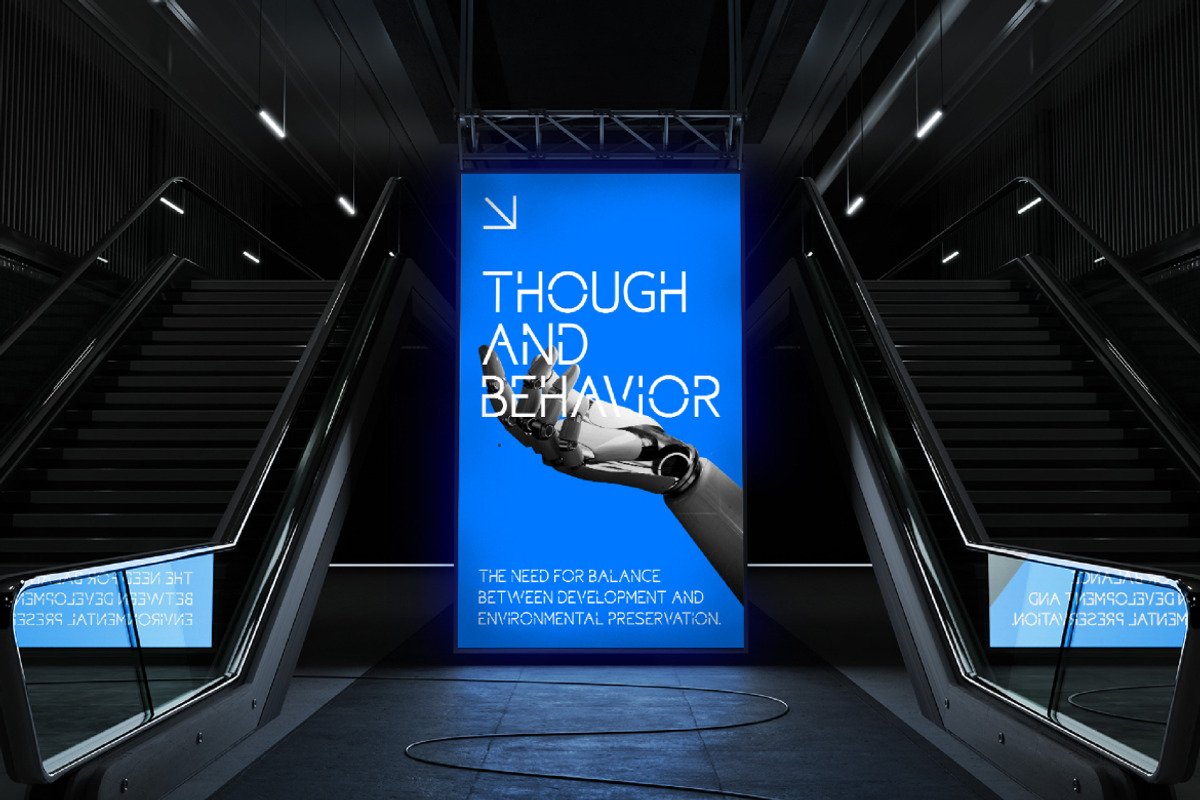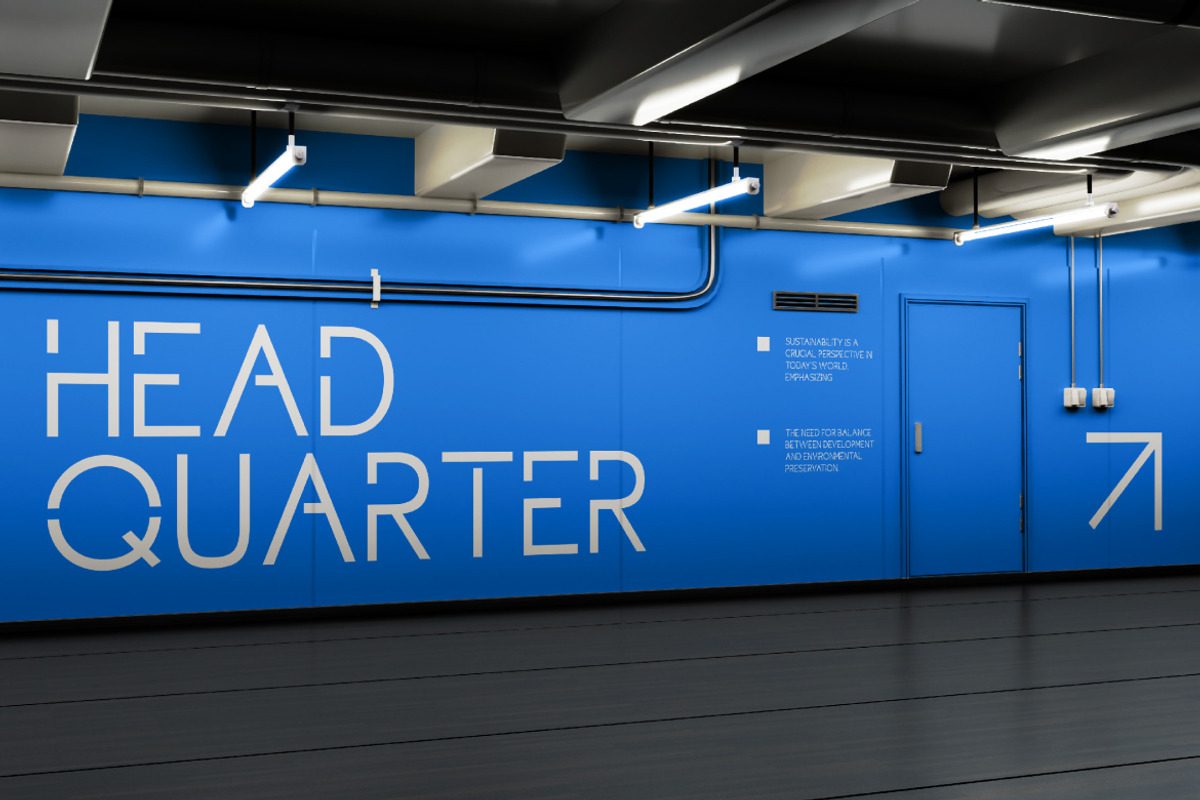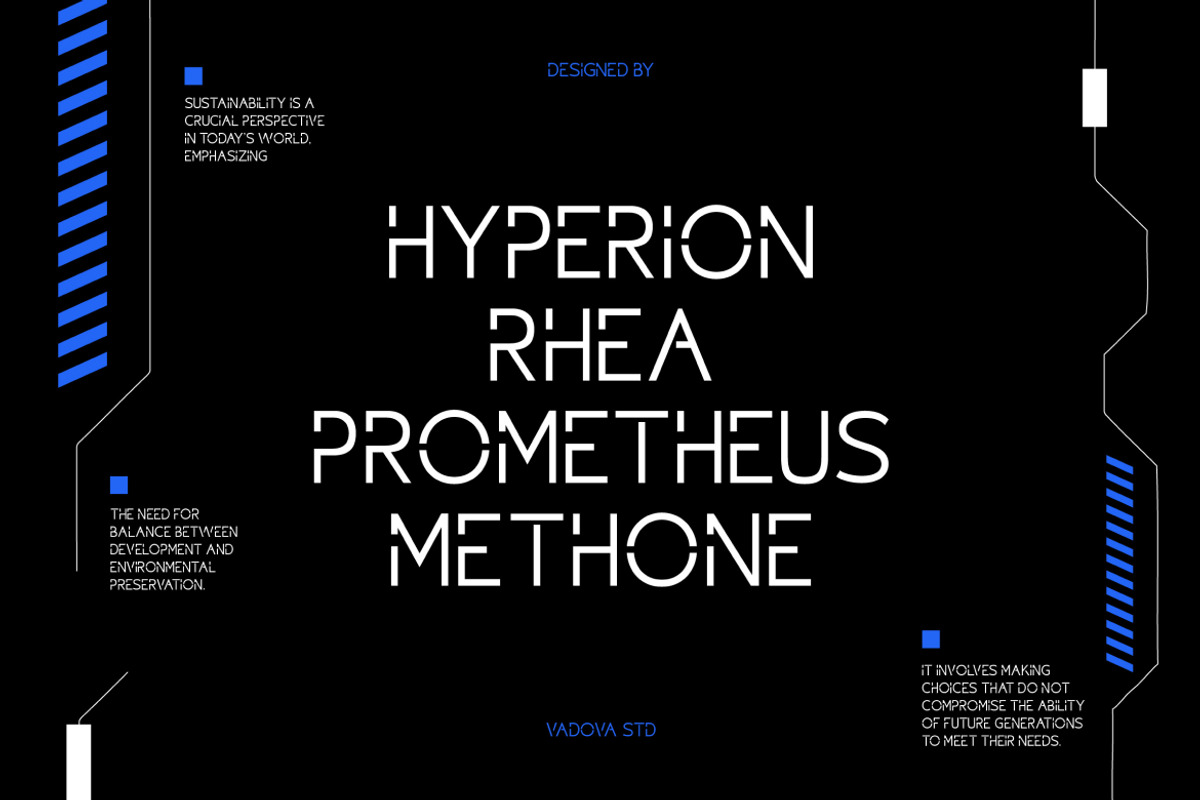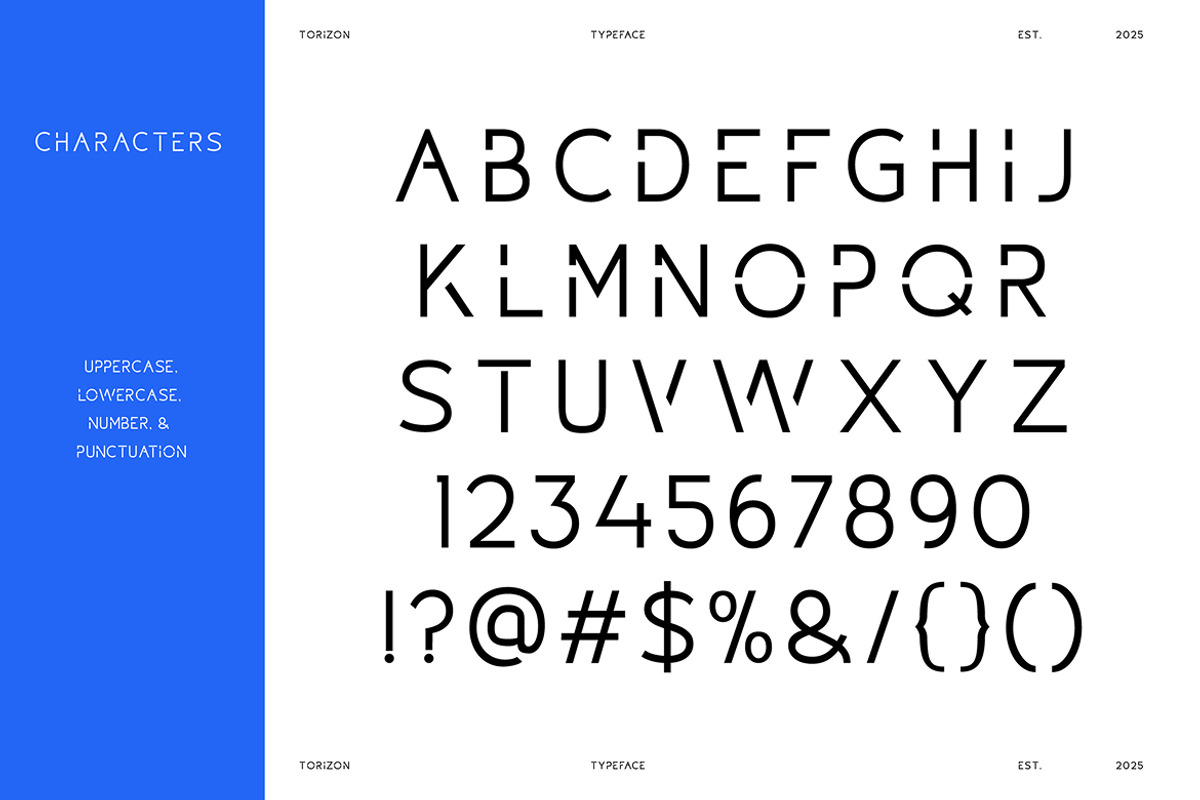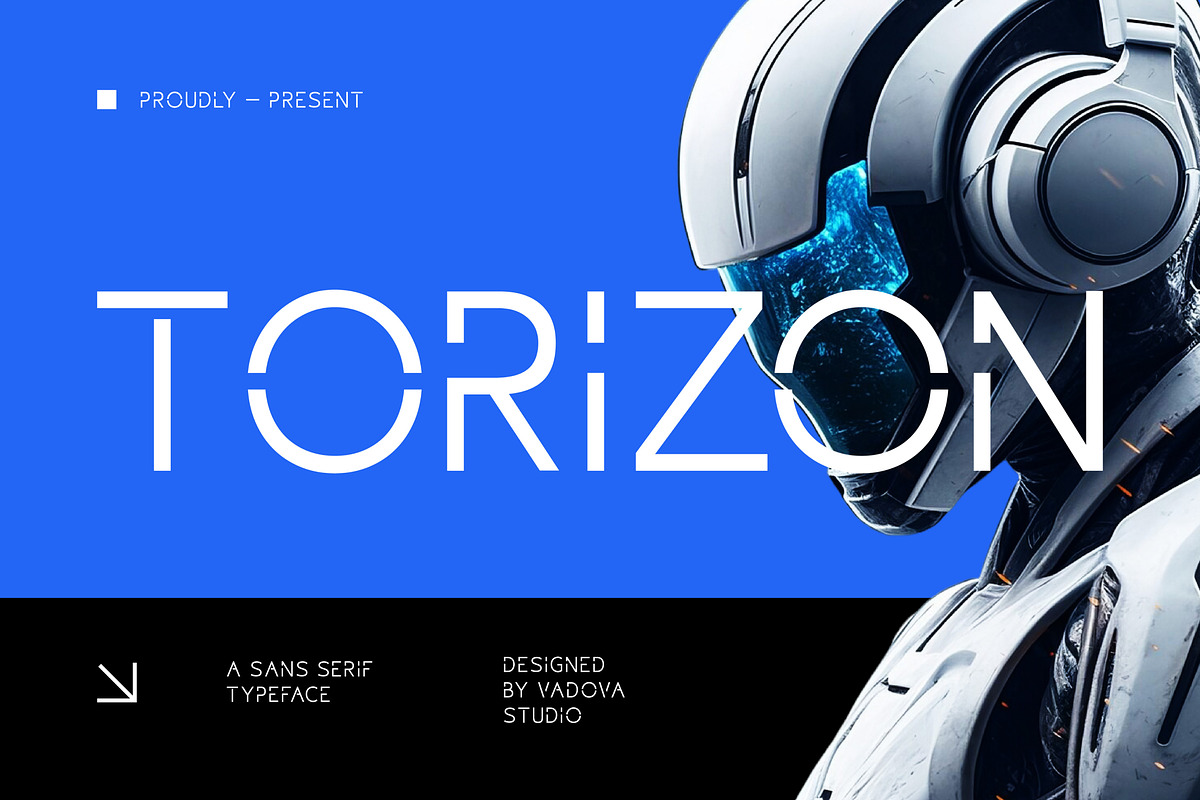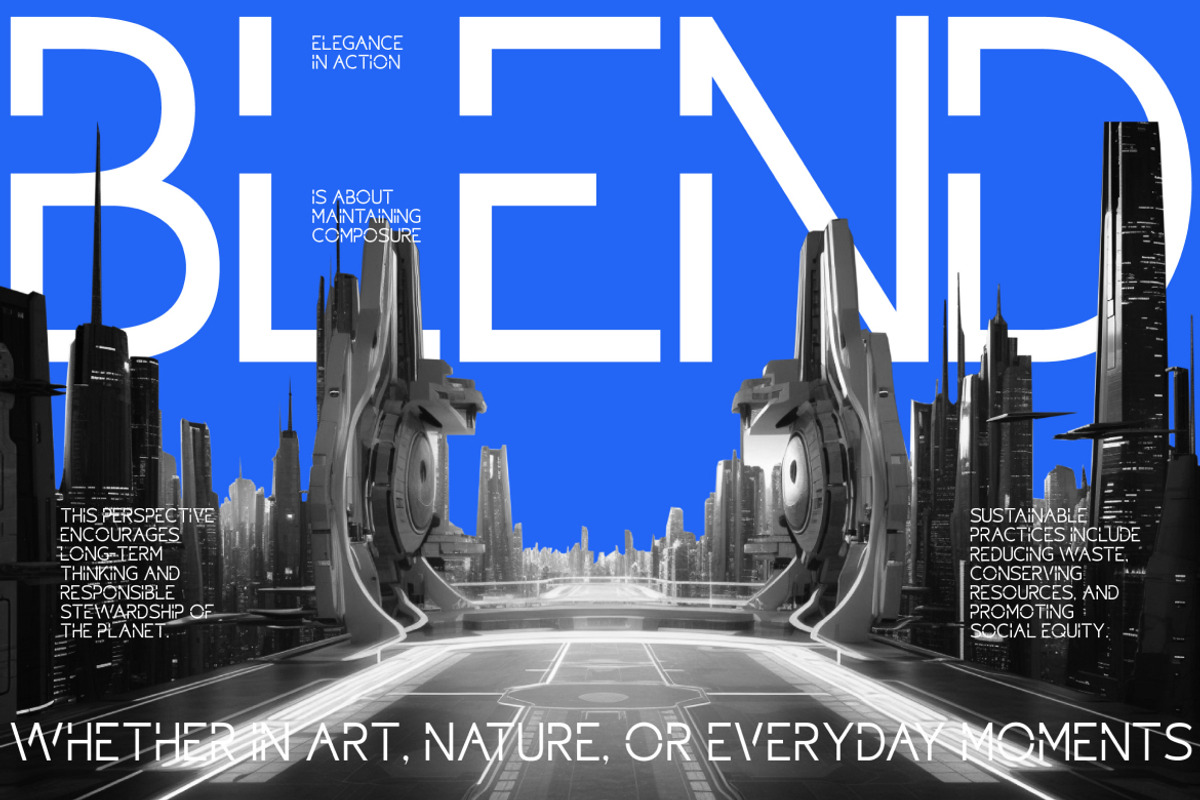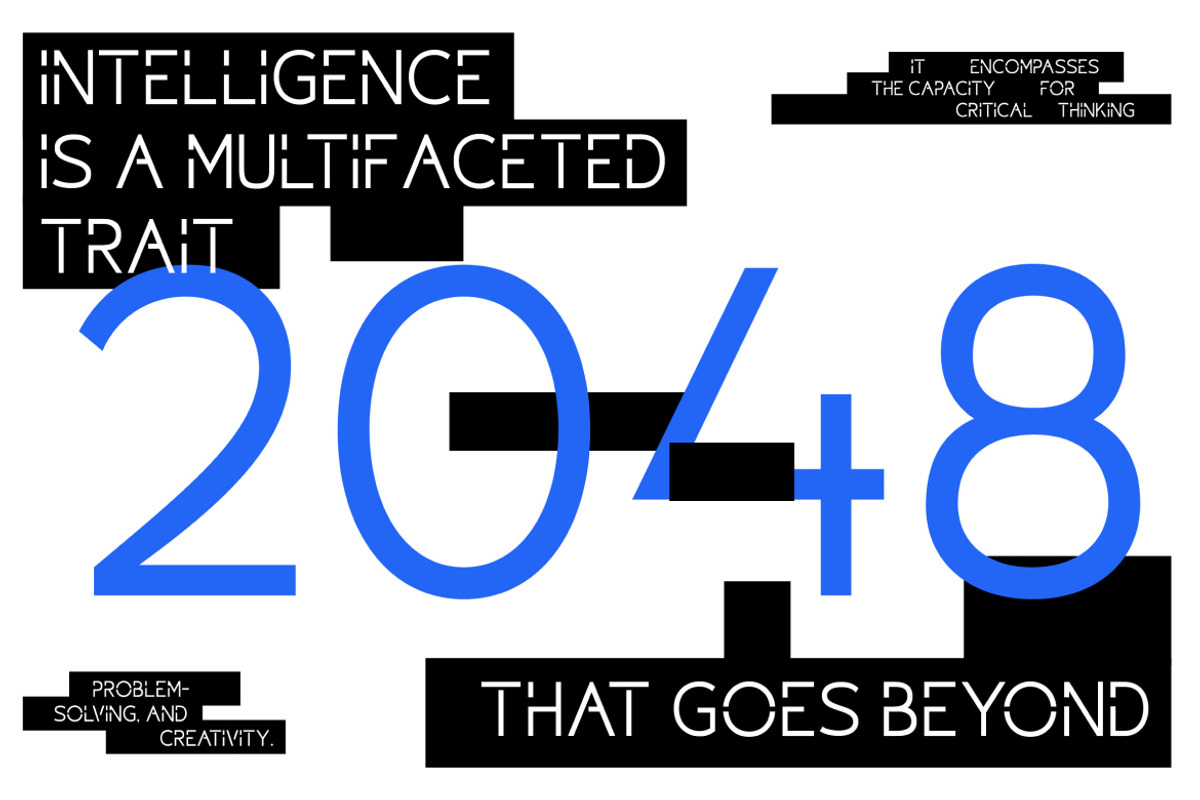
Torizon – Futuristic Sans Serif Type
Torizon is a sleek futuristic sans serif font crafted for projects that demand a modern, cutting-edge look. With its clean lines, geometric balance, and sci-fi inspiration, Torizon brings a bold digital aesthetic to any design.
Perfect for technology branding, gaming titles, digital interfaces, posters, and cinematic visuals, this font creates a powerful sense of innovation and progress.
Highlights
Futuristic sans serif with geometric structure
Sleek and minimal design for digital aesthetics
Strong readability in both print & screen
Inspired by sci-fi, robotics, and high-tech design
Best Uses
Technology Branding – futuristic logos & corporate identity
Gaming Titles & Esports – bold and immersive displays
UI/UX & Apps – sleek and clean interfaces
Posters & Advertising – futuristic and striking layouts
Cinematic Titles – sci-fi movies, trailers, and intros
Digital Art & NFT Projects – modern typography for creative visuals
Uppercase & Lowercase Letters
Multilingual Support – extended character coverage
With Torizon, your designs will step into the future of typography — combining minimal elegance and futuristic energy.